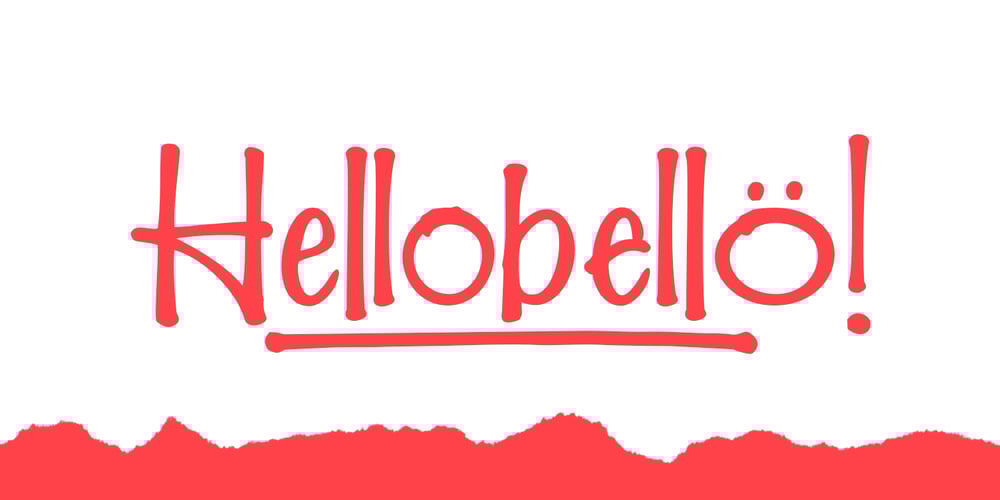
Hellobello Font Family was designed by Fajar Gunawan and published by Fargun Studio. Hellobello contains 3 styles and family package options. Hellobello! is a marker font with regular, alternate, and swashes. Hellobello! characters are perfect for logos, name tags, handwritten quotes, product packaging, merchandise, social media, greeting cards and much more. Features Uppercase & lowercase Punctuation & numerals Multi-language characters Designed by Fargun Studio 2017 © Need help? If you need help or advice, please contact me by e-mail “fargunstudio@gmail.com” Thank you for your purchase!